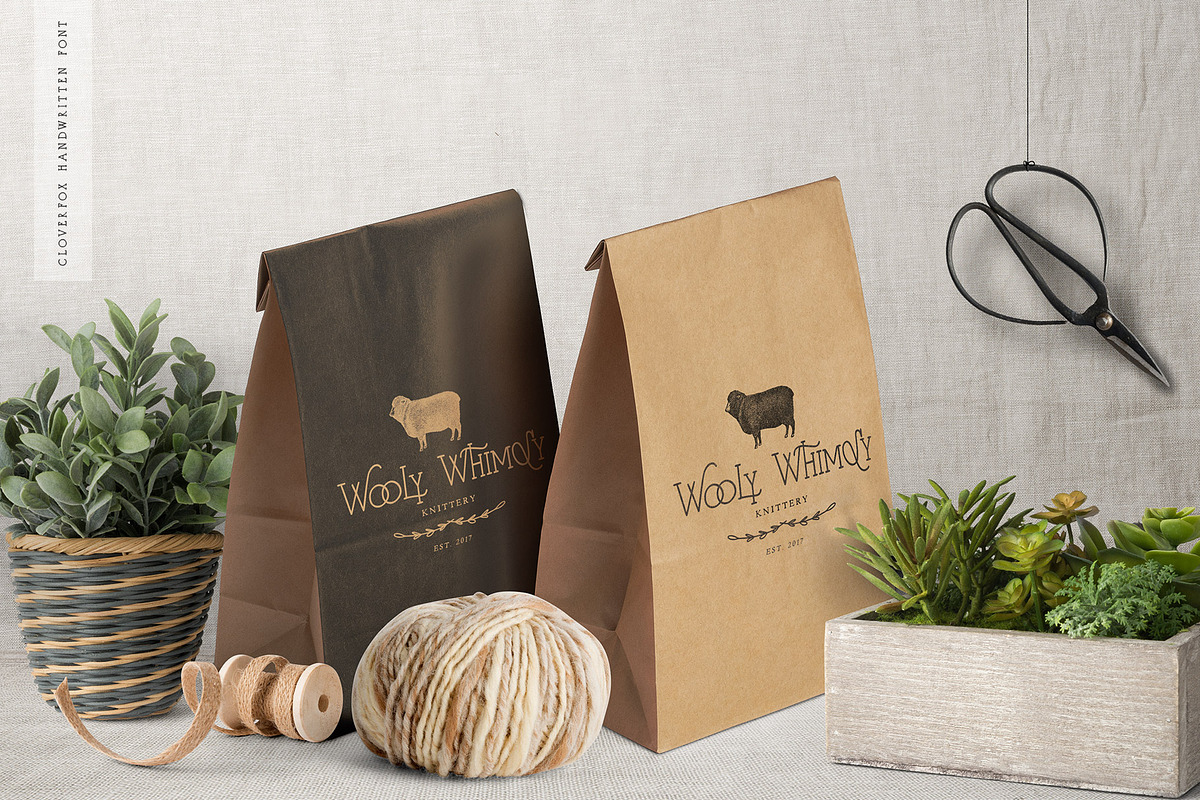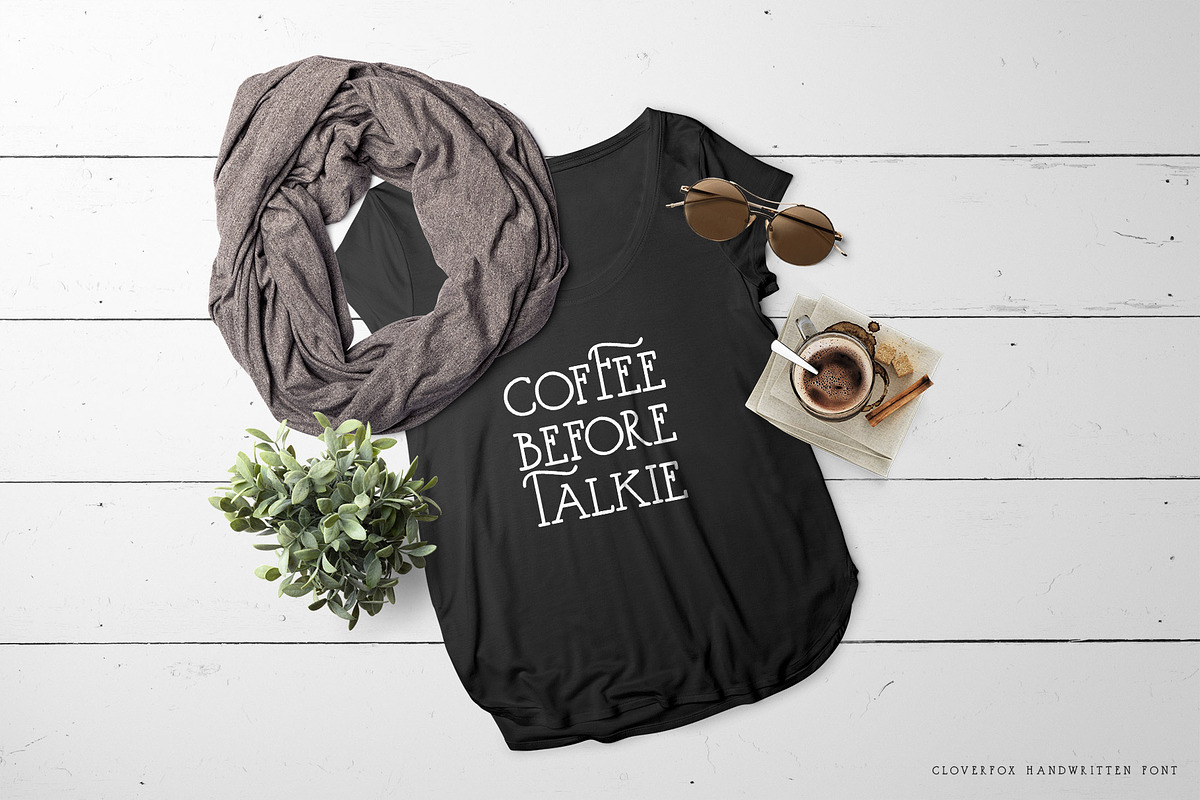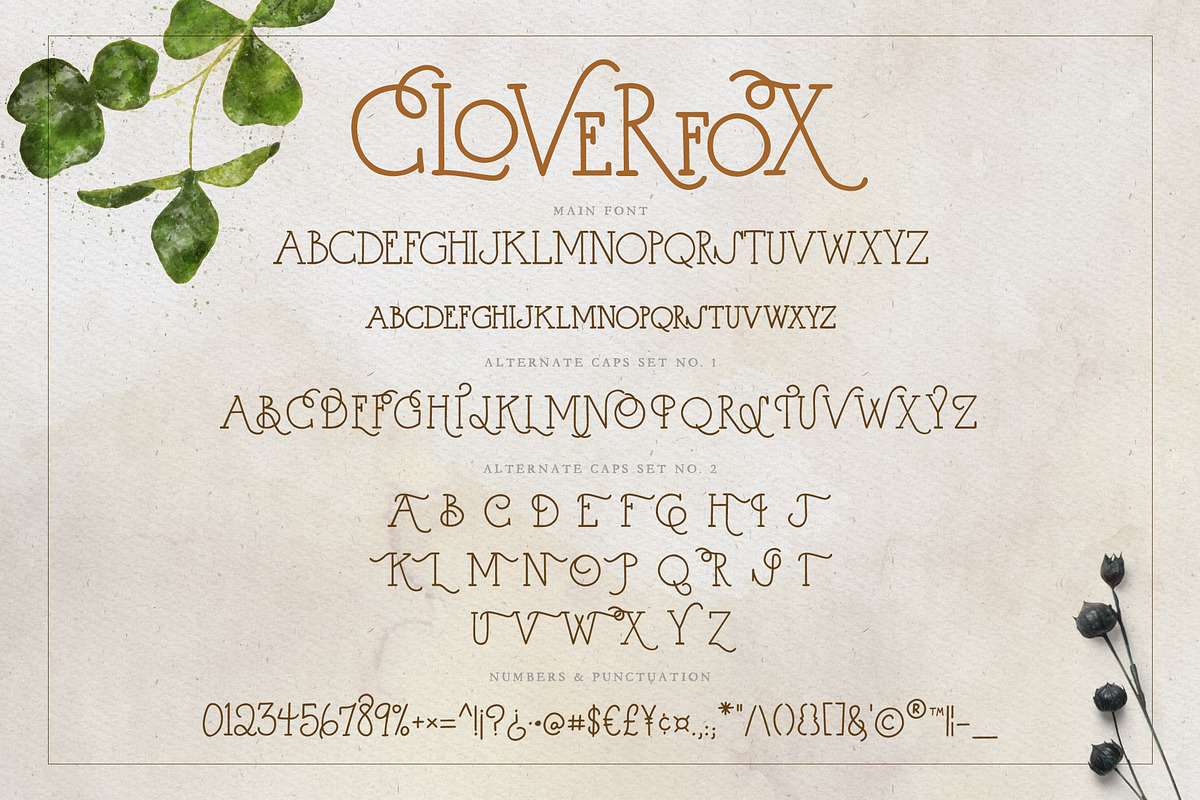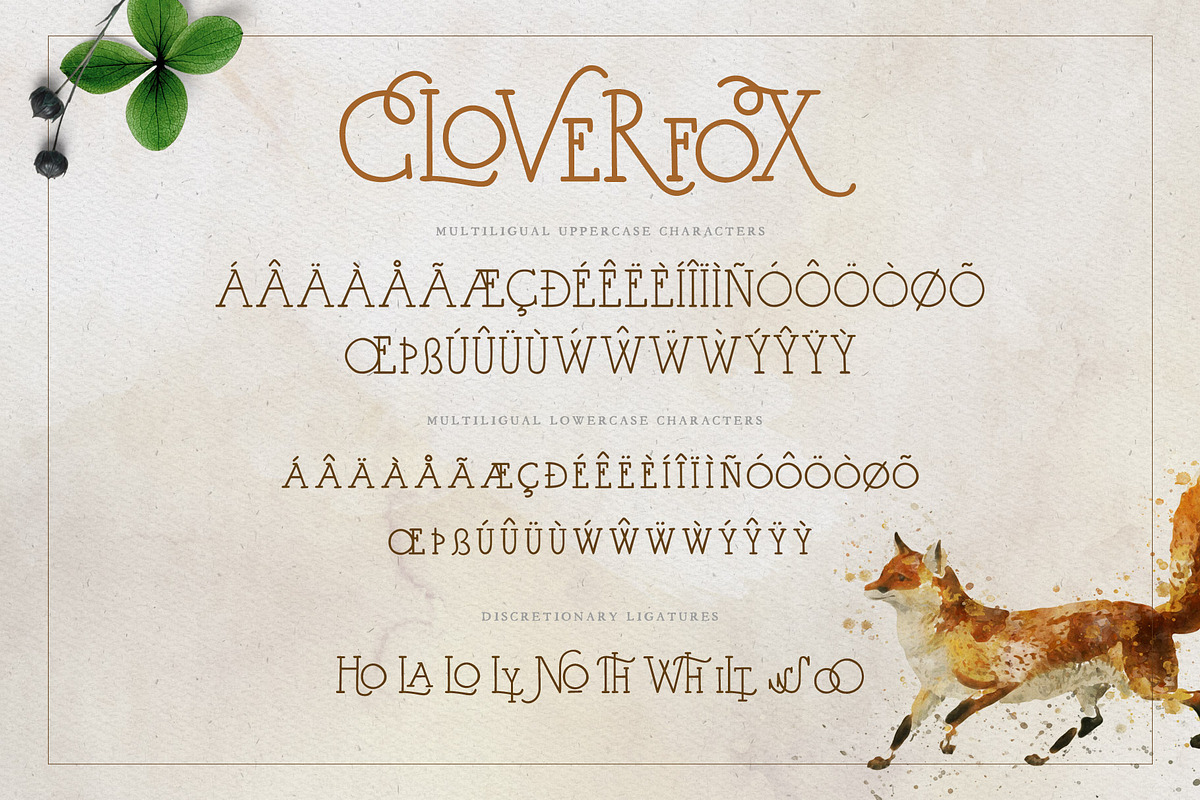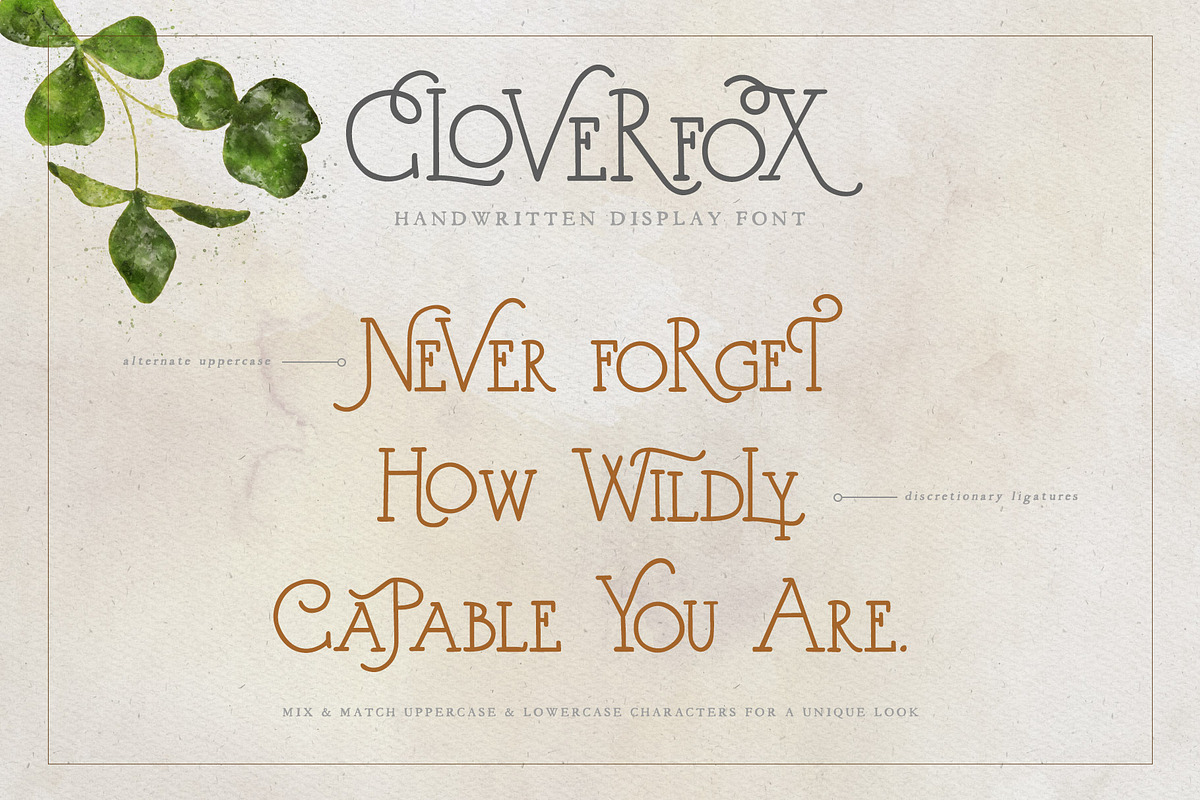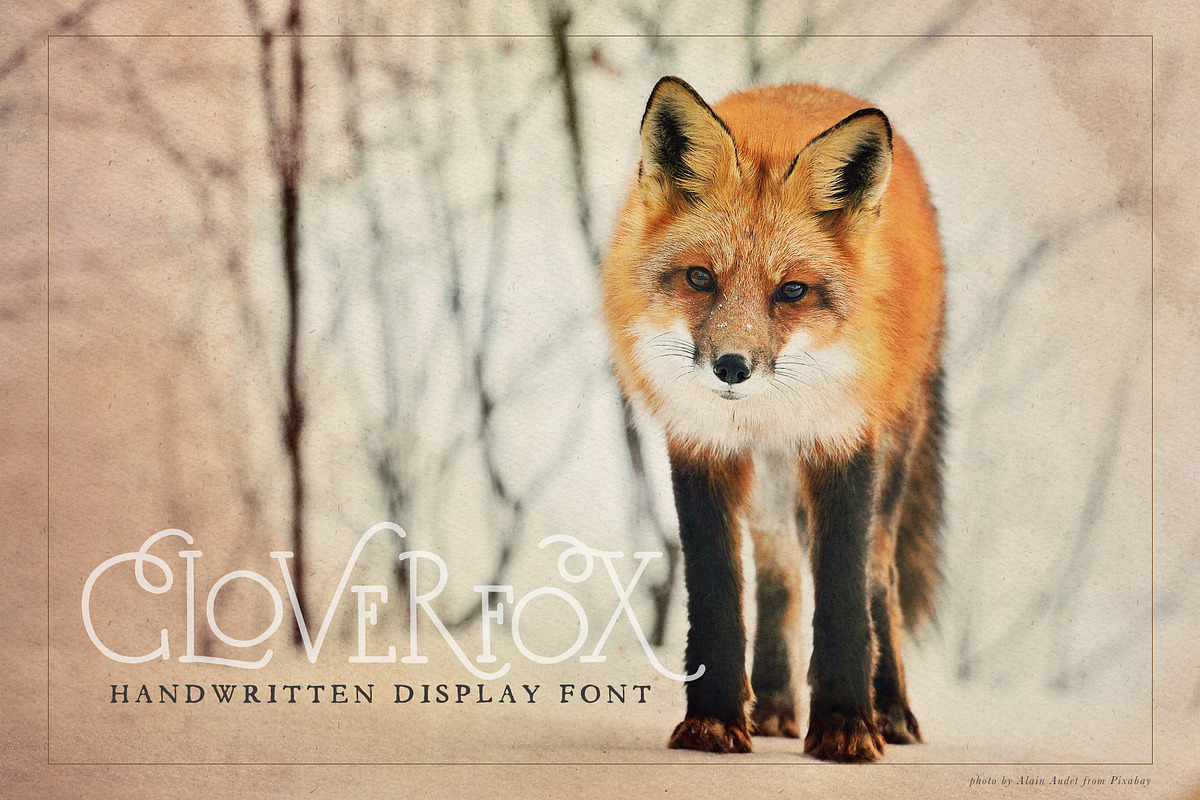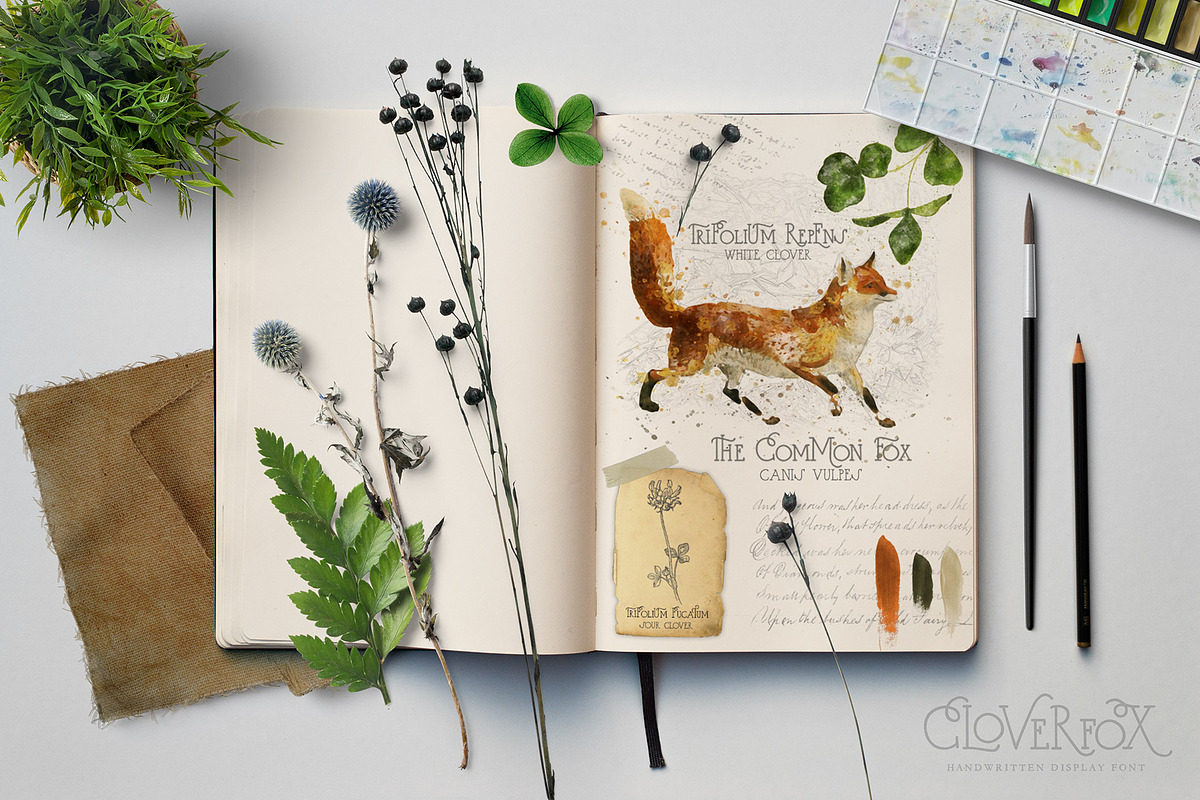
CloverFox Display Font
Presenting CloverFox, a handwritten display font that is quirky & whimsical. Mix and match uppercase and lowercase characters for a unique look. This font has 2 sets of alternate capital letters as well as 10 discretionary ligatures.
Multilingual support includes the Latin-1 letter characters which supports most Western European languages such as Albanian, Catalan, Danish, Dutch, English, Faeroese, Finnish, French, German, Galician, Irish, Icelandic, Italian, Norwegian, Portuguese, Spanish, and Swedish.